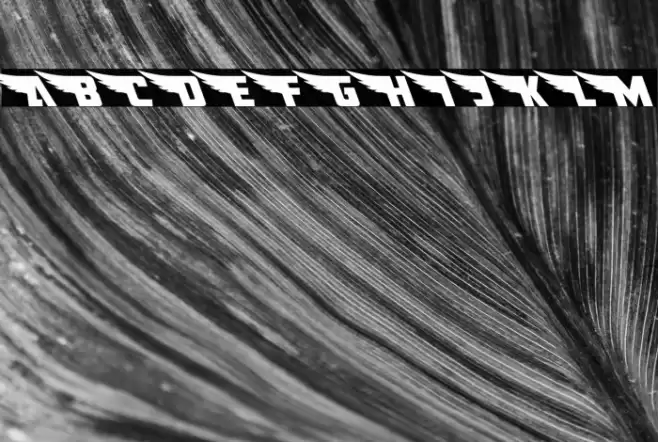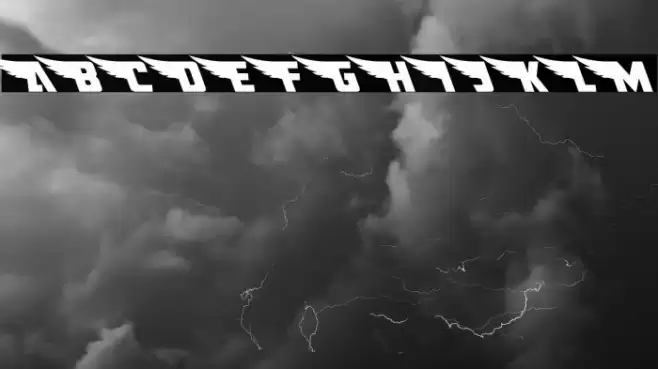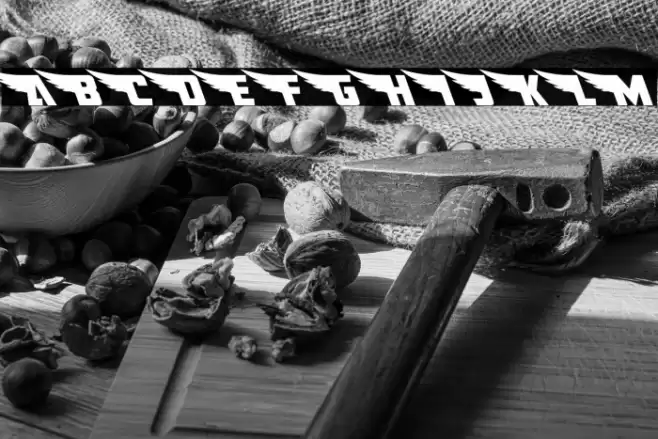
American Kestrel Leftalic Font
American Kestrel Leftalic Description
This font features a bold and dynamic design with a strong emphasis on angular shapes and sharp edges. The uppercase letters are particularly striking, with a unique wing-like extension on the left side, giving a sense of motion and speed. The characters are wide and robust, making them highly visible and impactful. The numbers and special characters maintain the same bold style, ensuring consistency across all elements. This font is ideal for projects that require a strong visual presence and a modern, edgy aesthetic.
A bold, angular font with dynamic wing-like extensions on uppercase letters from Uncategorized fonts.
- Font: American Kestrel Leftalic
- Proposed Projects: Ideal for sports branding, action movie posters, and dynamic logo designs.
- Width: Expanded
American Kestrel Leftalic UPPERCASE